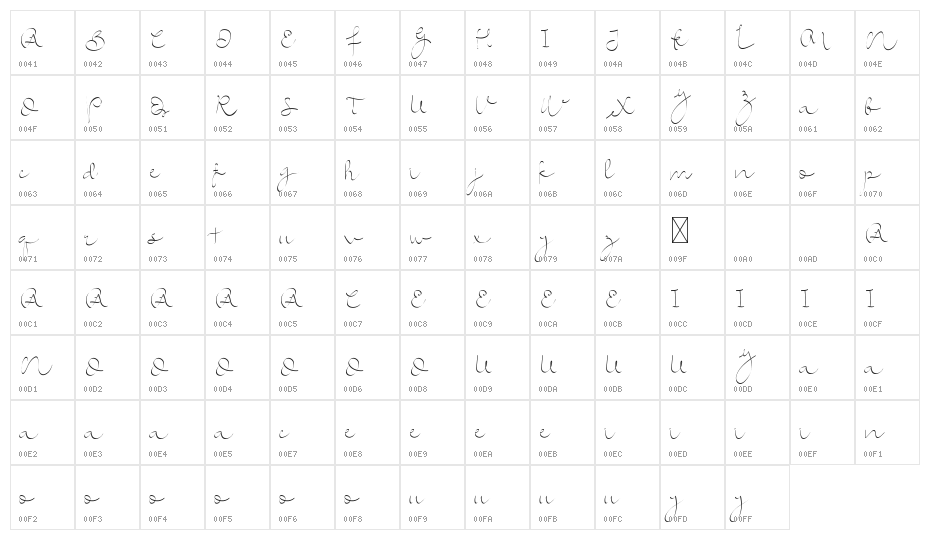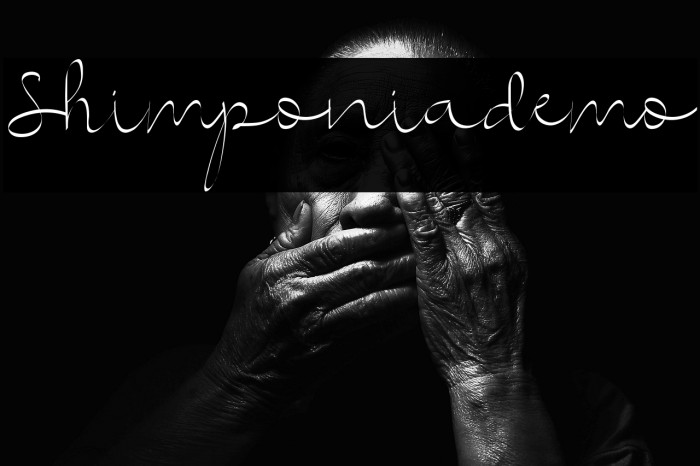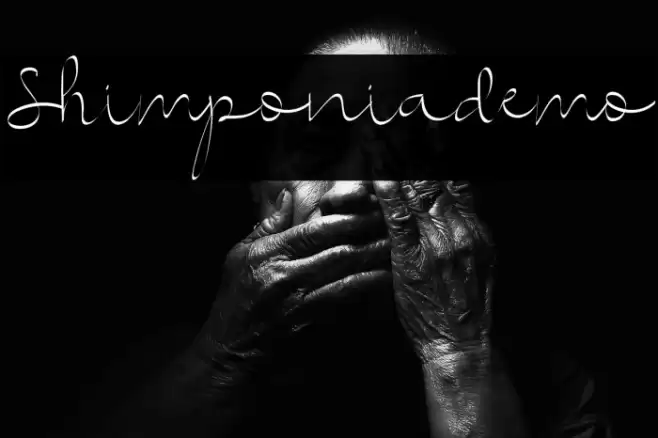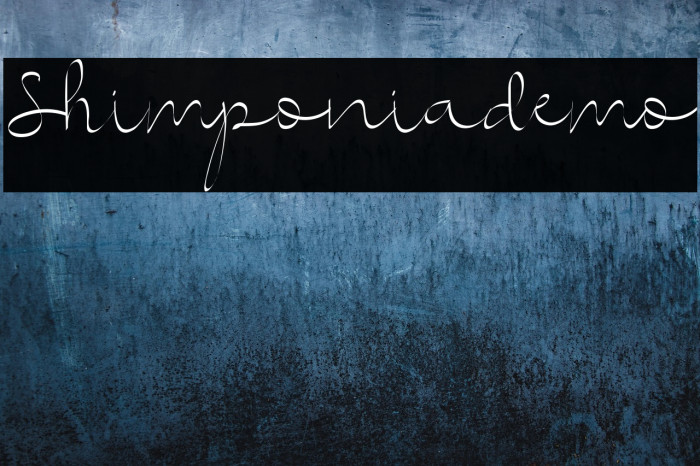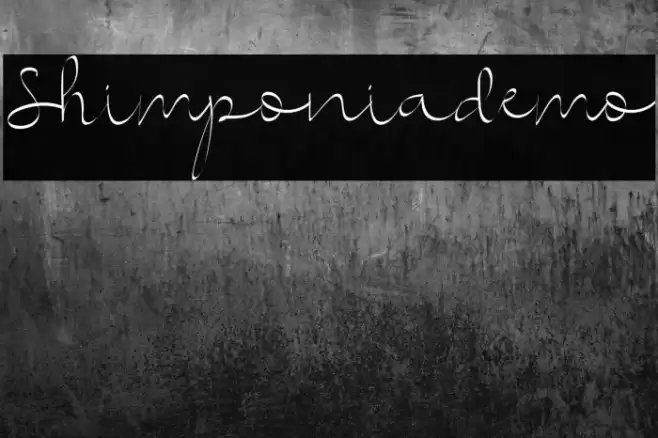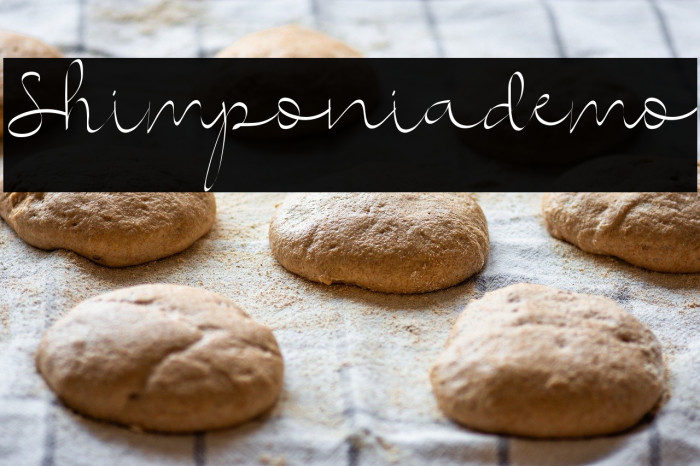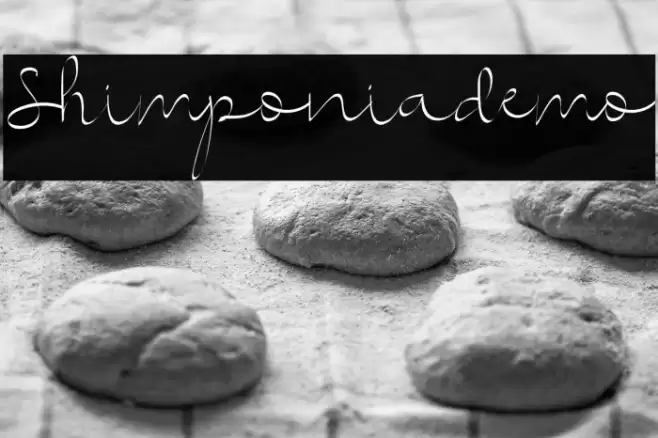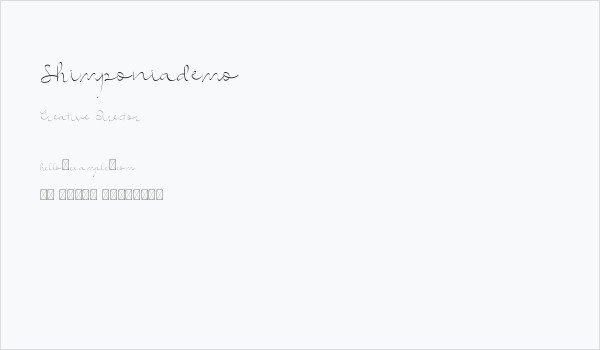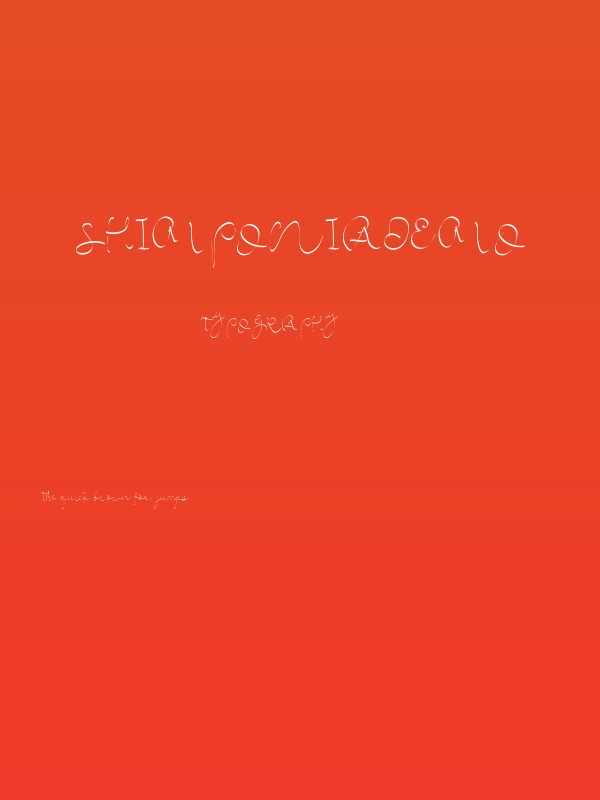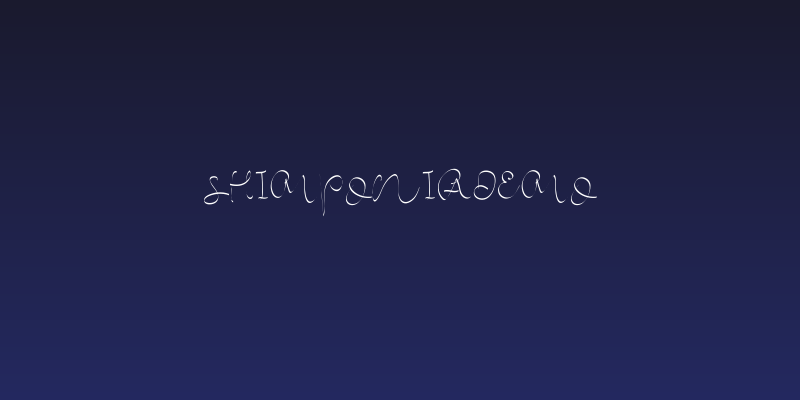
Shimponiademo Font
Shimponiademo Description
This font exhibits a highly decorative and elegant script style, characterized by its flowing, cursive letterforms. The strokes are thin and delicate, with graceful loops and swirls that add a sense of sophistication and artistry. The uppercase letters are particularly ornate, featuring extended ascenders and descenders that create a dynamic and fluid appearance. The lowercase letters maintain a consistent style, complementing the uppercase with their own subtle flourishes. The overall impression is one of refinement and elegance, making it suitable for formal invitations, branding, and other projects where a touch of class is desired.